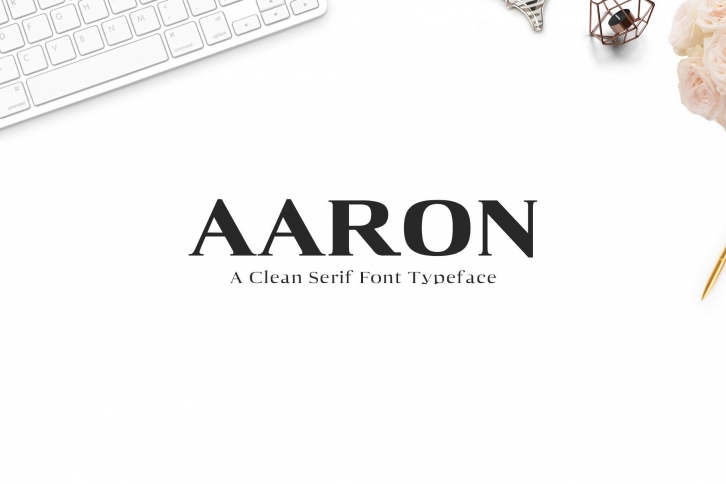
Aaron is a clean and modern serif font family that beautifully combines a classy style with a futuristic and solemn look. Use it for your most creative ideas, and watch how it makes them stand out!